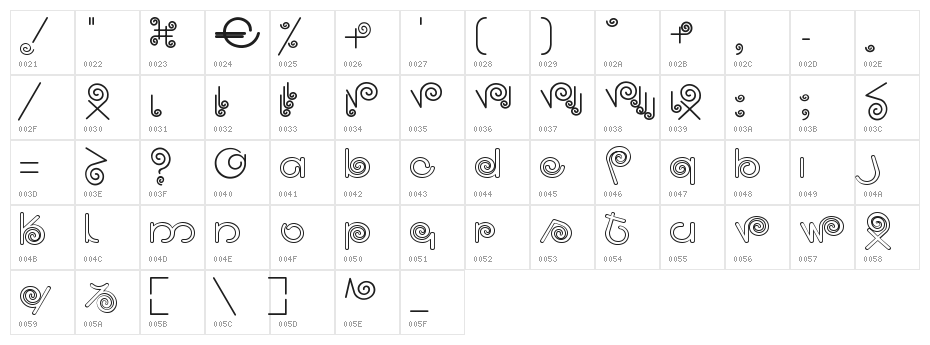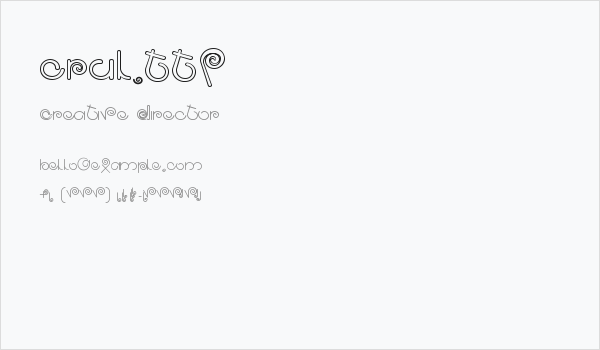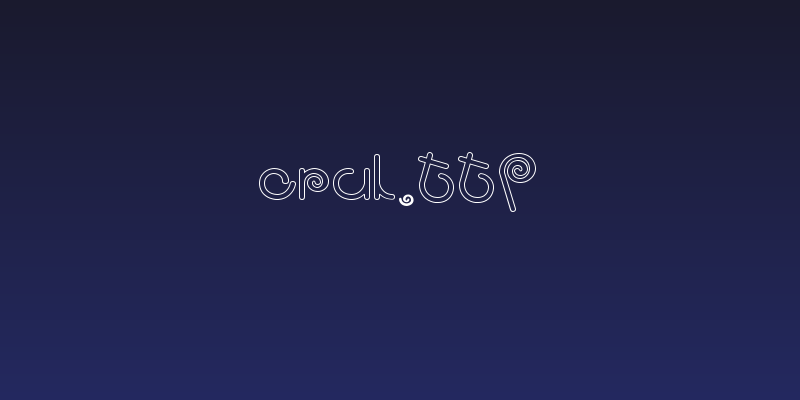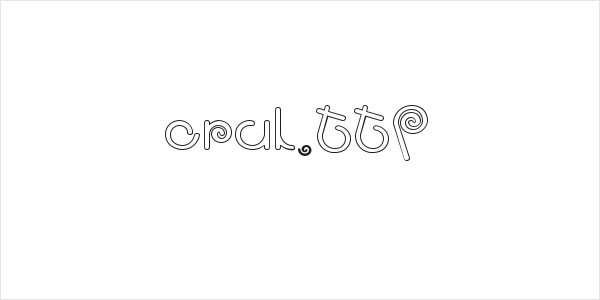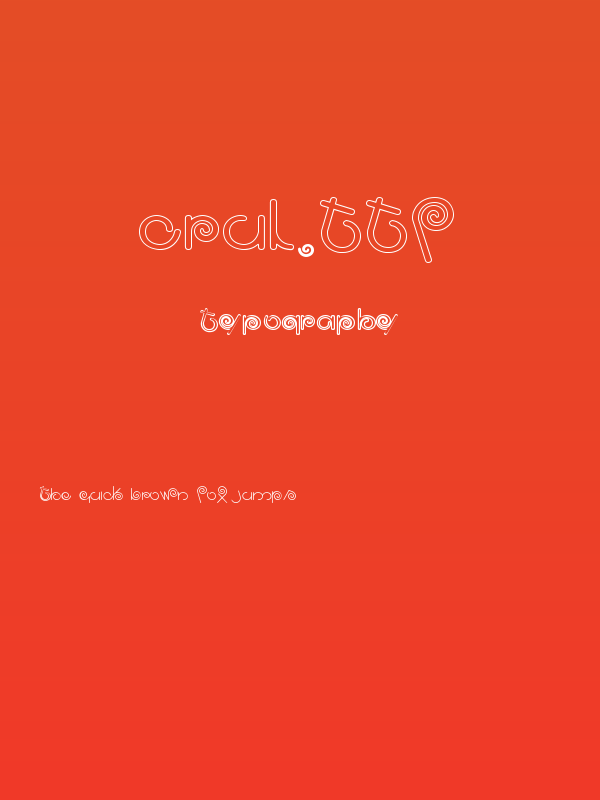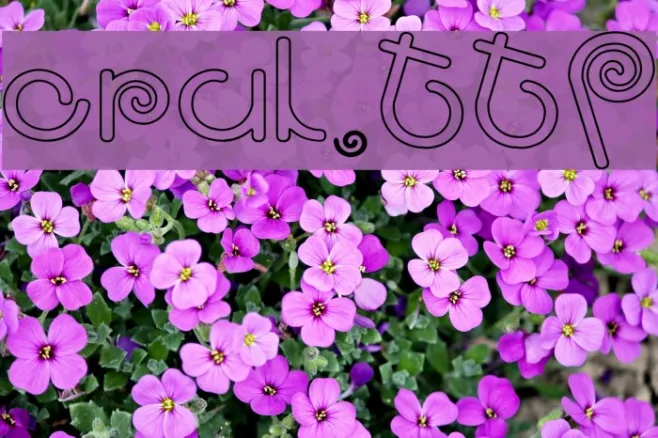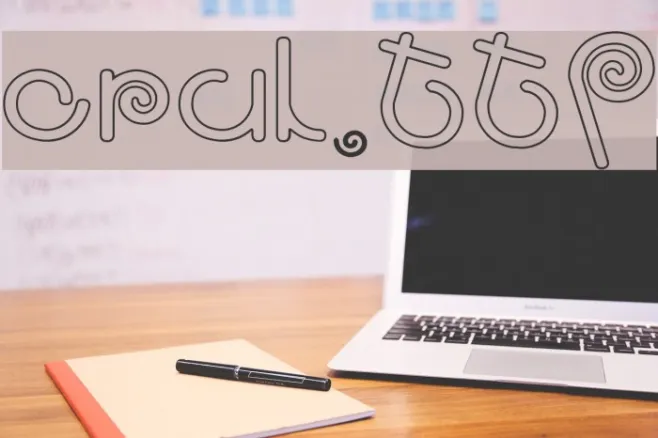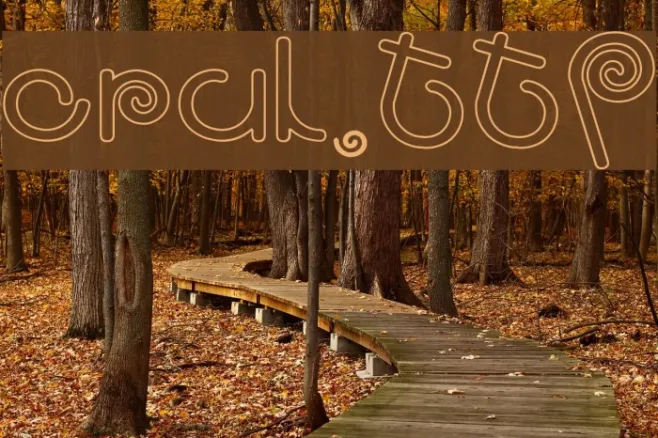
CRUL.TTF Font
CRUL.TTF Description
This font features an intricate and decorative design with a whimsical flair. Each character is crafted with swirling, spiral elements that give it a playful and artistic appearance. The uppercase and lowercase letters maintain a consistent style, with loops and curves that create a sense of movement and fluidity. The numbers and special characters are equally ornate, incorporating the same spiral motifs. This font's unique style makes it stand out, offering a creative and imaginative look that is both eye-catching and distinctive.
| Use Case | Logos, Artistic projects, Invitations |
| Proposed Projects | Ideal for creative projects such as invitations, greeting cards, artistic posters, and branding that requires a playful and unique touch. |